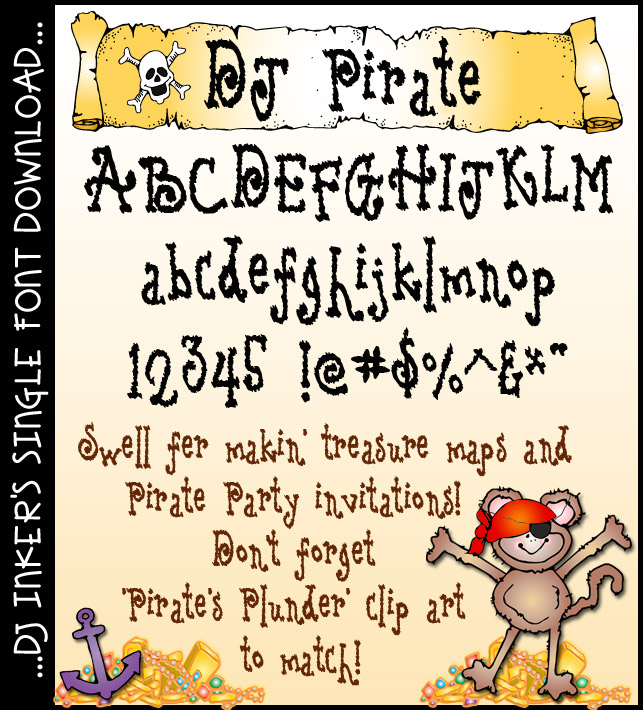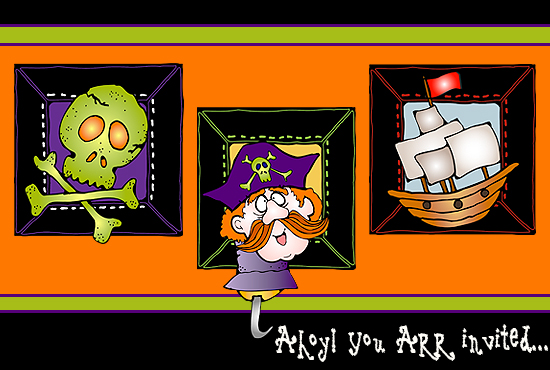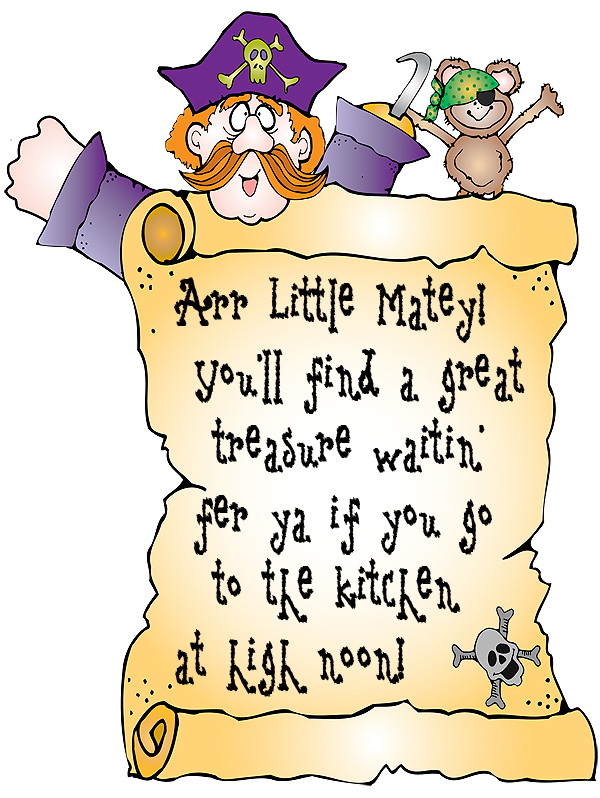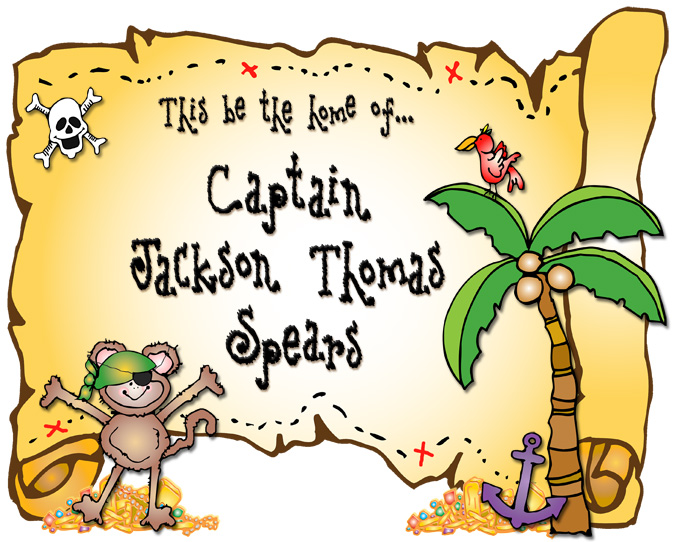
DJ Pirate is a swell font
for makin' treasure maps and pirate party invitations. It looks mighty
good in any size and color... especially paired with our Pirate's Plunder clip art. Download
yours today me hearties!